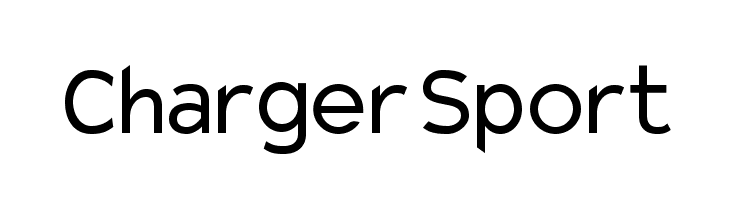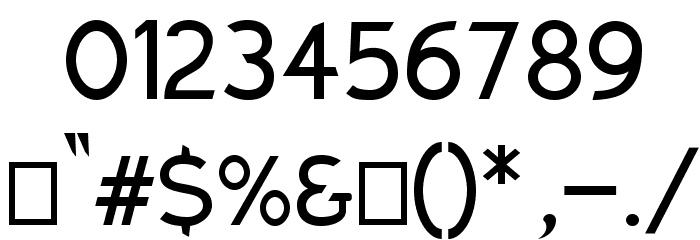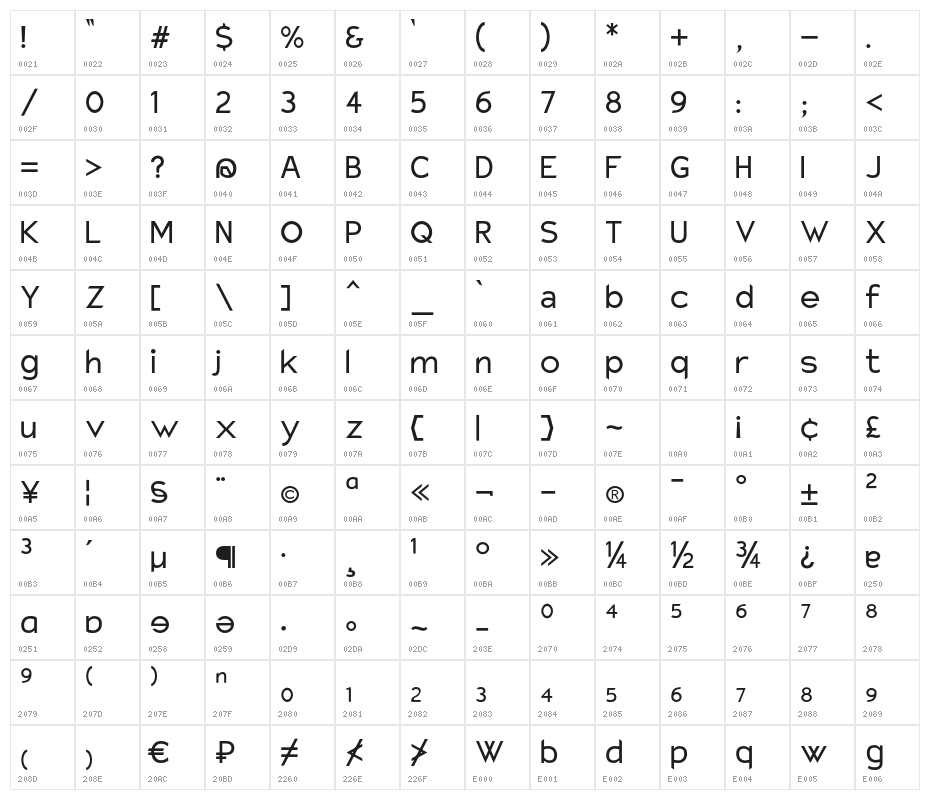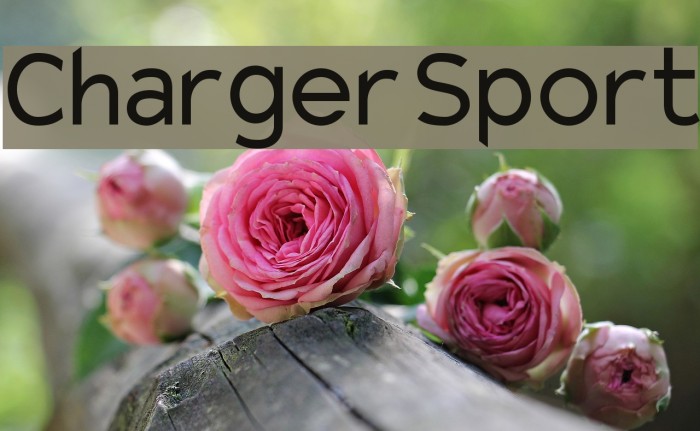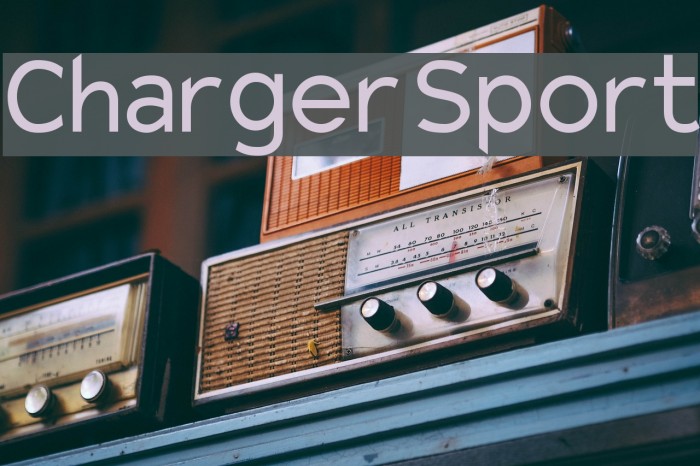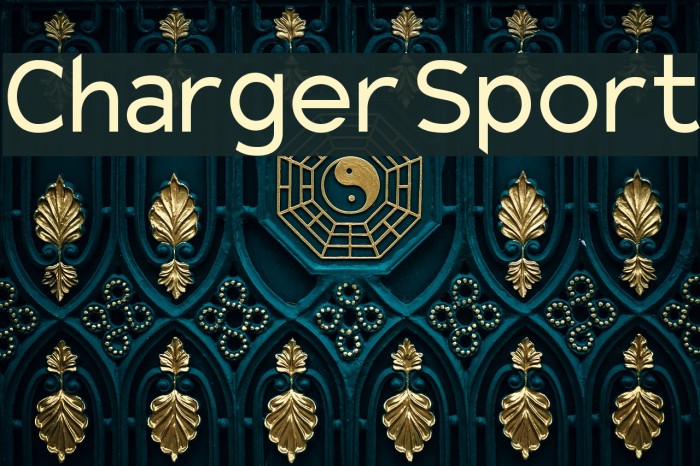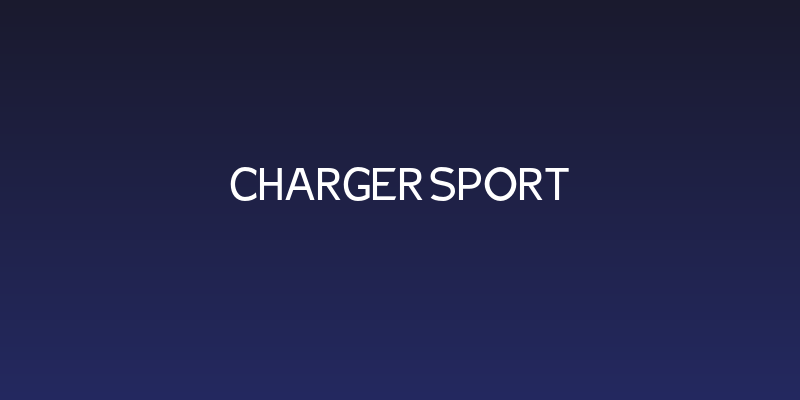
Charger Sport Font
Charger Sport Description
This typeface exhibits a clean and modern aesthetic with smooth, rounded edges and a uniform stroke width. The uppercase letters are bold and assertive, while the lowercase letters maintain a consistent flow, enhancing readability. The numerals are clear and distinct, matching the overall geometric style. Special characters are well-integrated, maintaining the font's sleek appearance. The design is versatile, suitable for both digital and print media, offering a contemporary look that is both professional and approachable.